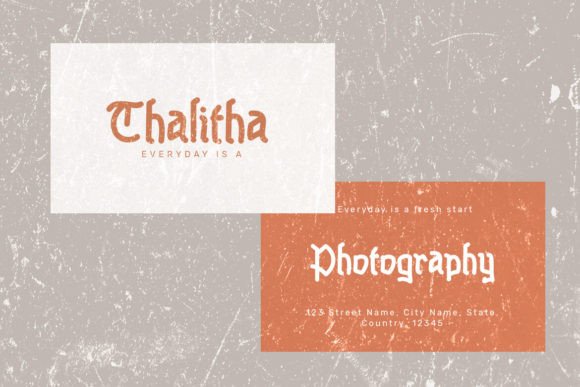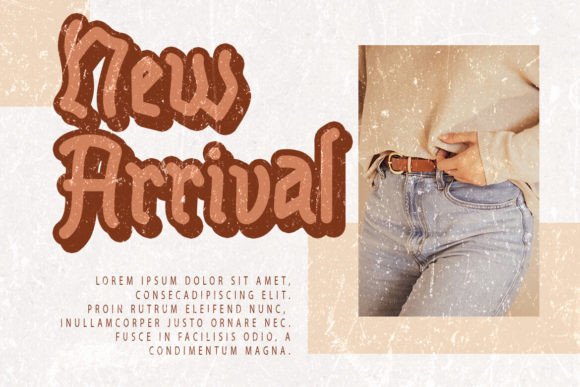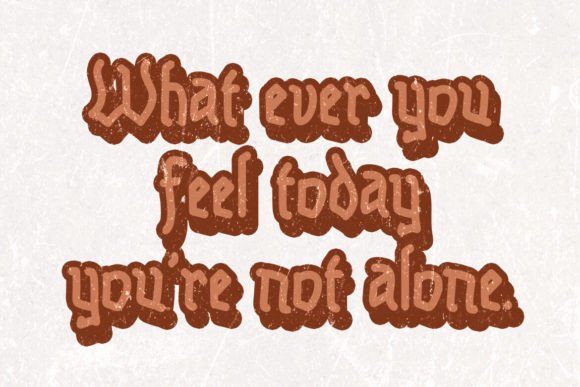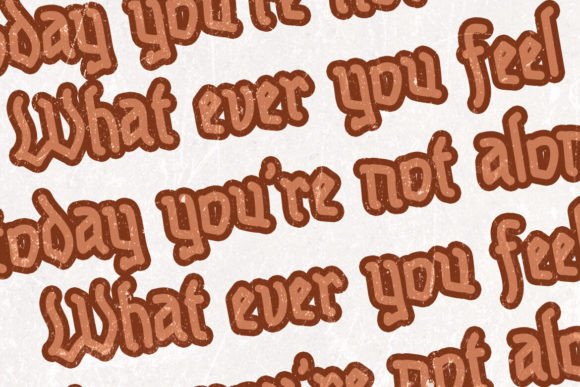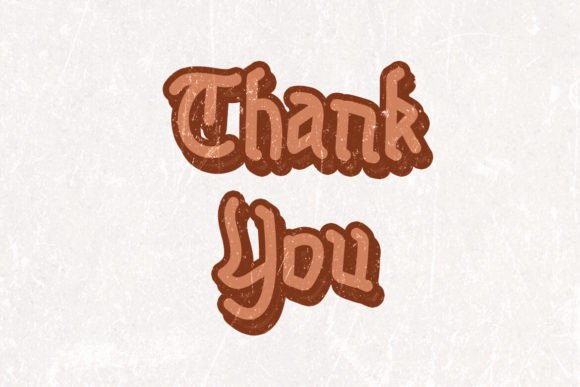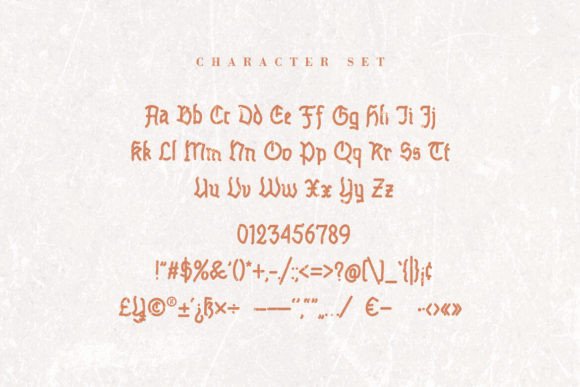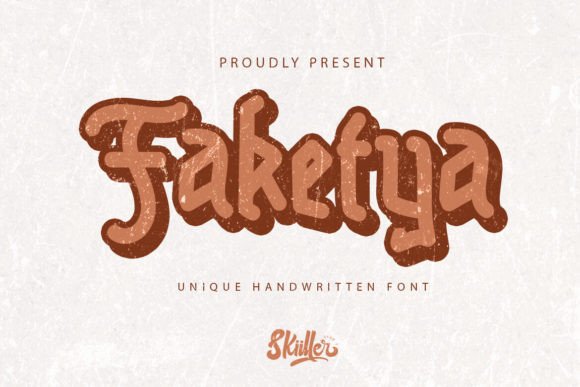
Faketya Font: The Perfect Handwritten Font for Fun Projects
Are you a designer or crafter looking for a unique and playful font to add a personal touch to your projects? Look no further than Faketya Font! This handwritten font is perfect for creating fun and engaging content for children’s parties, cute quotes, and any other project that requires a touch of whimsy. In this article, we’ll dive into the world of Faketya Font and explore its features, benefits, and uses.
What is Faketya Font?
Faketya Font is a handwritten font designed to bring a smile to your face. Its playful and carefree style makes it ideal for projects that require a fun and lighthearted approach. The font is carefully crafted to resemble handwriting, giving it a personal and relatable feel that’s perfect for connecting with your audience.
Features of Faketya Font
Faketya Font comes with a range of features that make it a versatile and practical choice for designers and crafters. Some of its key features include:
- Handwritten style: Faketya Font is designed to mimic handwriting, giving it a unique and personal touch.
- Playful and fun: The font’s playful style makes it perfect for projects that require a lighthearted approach.
- Easy to read: Despite its playful style, Faketya Font is easy to read and understand, making it perfect for quotes, posters, and other visual content.
- Versatile: Faketya Font can be used for a wide range of projects, from children’s parties to social media graphics.
Benefits of Using Faketya Font
So, why should you choose Faketya Font for your projects? Here are just a few benefits of using this amazing font:
- Adds a personal touch: Faketya Font’s handwritten style gives your projects a personal and relatable feel that resonates with your audience.
- Creates a fun and playful vibe: The font’s playful style creates a fun and engaging atmosphere that’s perfect for projects that require a lighthearted approach.
- High-quality design: The font is carefully designed to ensure high-quality output that’s perfect for printing and digital use.
Uses of Faketya Font
Faketya Font is a versatile font that can be used for a wide range of projects, including:
- Children’s parties: Faketya Font is perfect for creating fun and engaging content for children’s parties, such as invitations, posters, and banners.
- Cute quotes: The font’s playful style makes it ideal for creating cute and inspiring quotes that resonate with your audience.
- Social media graphics: Faketya Font can be used to create engaging social media graphics that add a personal touch to your online presence.
- DIY projects: The font is perfect for DIY projects, such as crafting, scrapbooking, and card making.